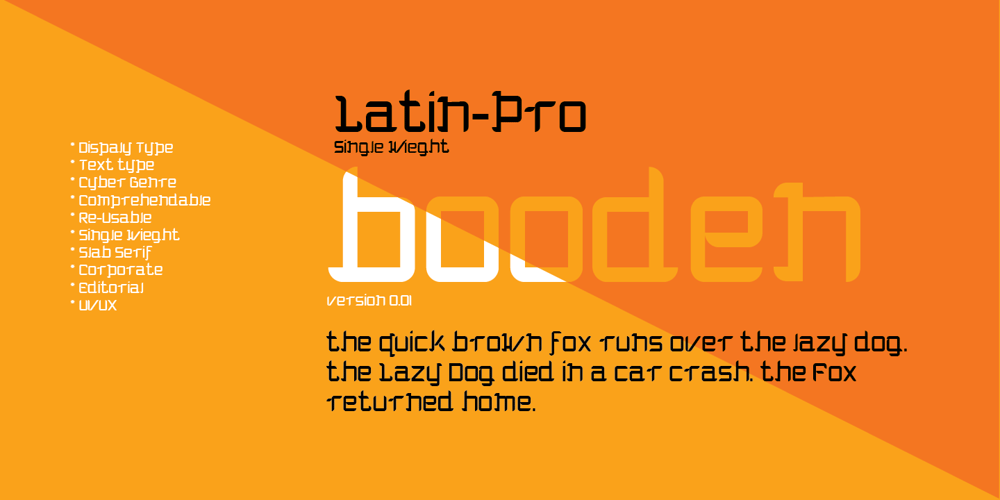
Booden
Booden font
Booden Font Family was designed by Lizzy Levy and published by Lithographe. Booden contains 1 styles and family package options. Booden is a name not to boo but to use in display type situations. but as texts funtion s to be read its functionality ges beyond a Cyber-tech font single weight single time use. it can be used for branding purposes or any type of editorial text because of its readability. Be it a logo, or a Title headliner, web or print booden typeface can certainly entertain your need for simple variation.